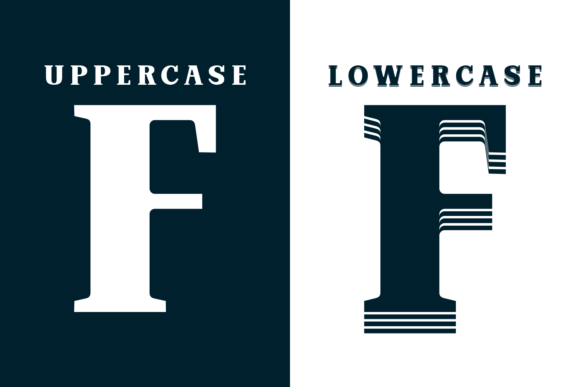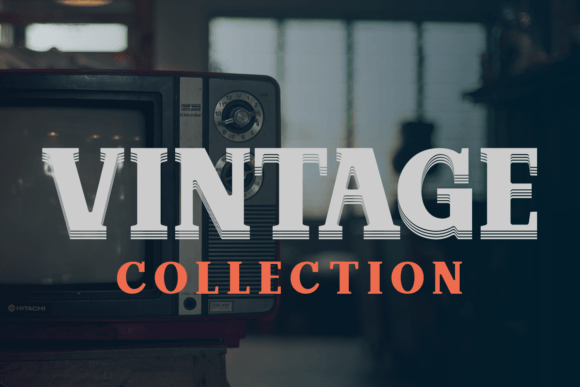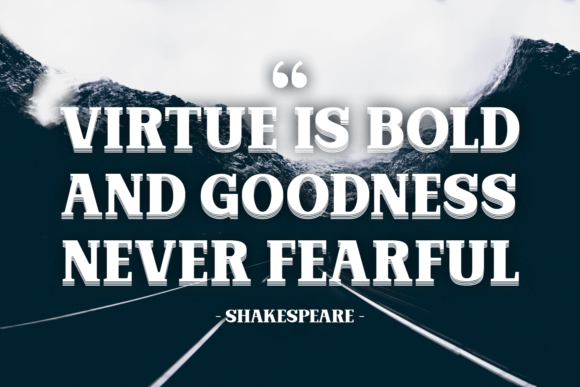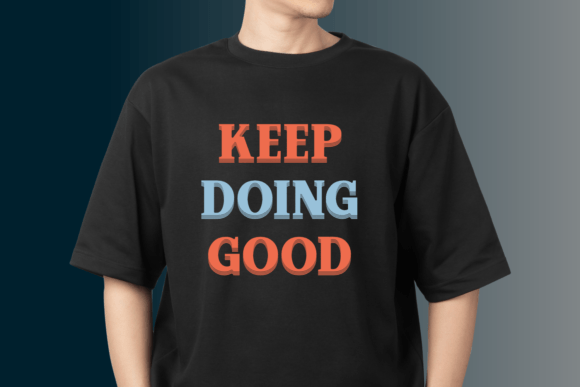
Introduction to Old Town Font
Old Town is a classic and timeless display serif font that evokes the charm and nostalgia of yesteryears.
Each letter is crafted with elegant serifs and refined lines, reminiscent of traditional typography found in vintage signage and print materials The font exudes a sense of history and heritage, transporting viewers to an era of quaint streets and historic buildings.
Key Features of Old Town Font